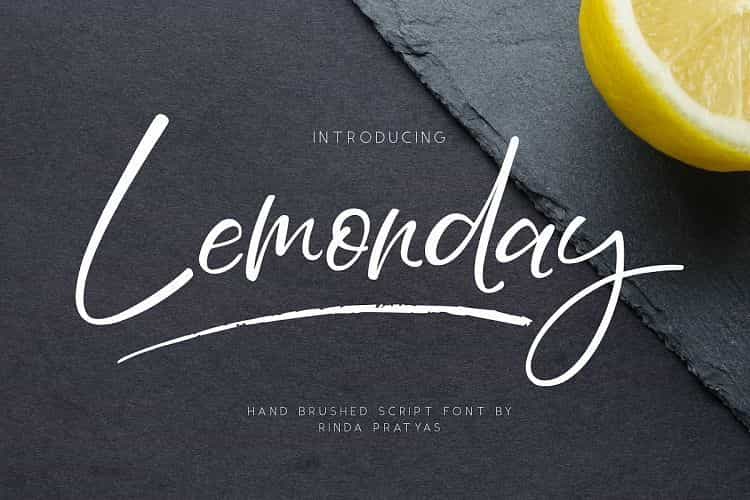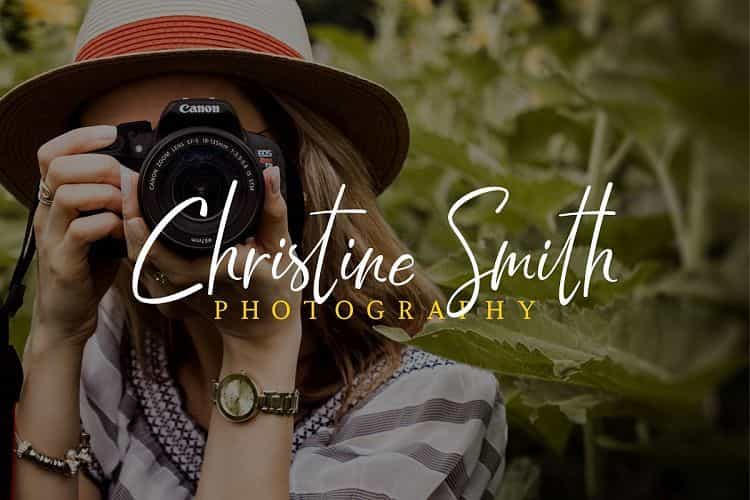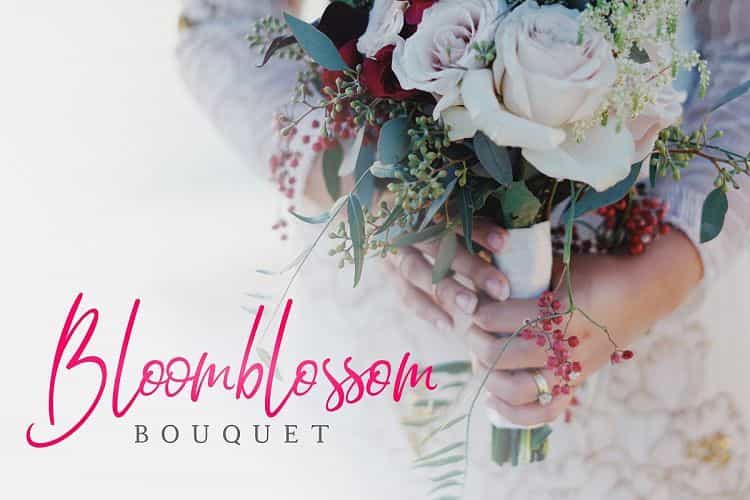
Thanks for taking time to read about Lemonday Font. A new fresh handmade brush font, this font is elegant, expressive, readable, stylish and catchy. It is created and distributed by RINDA PRATYAS.